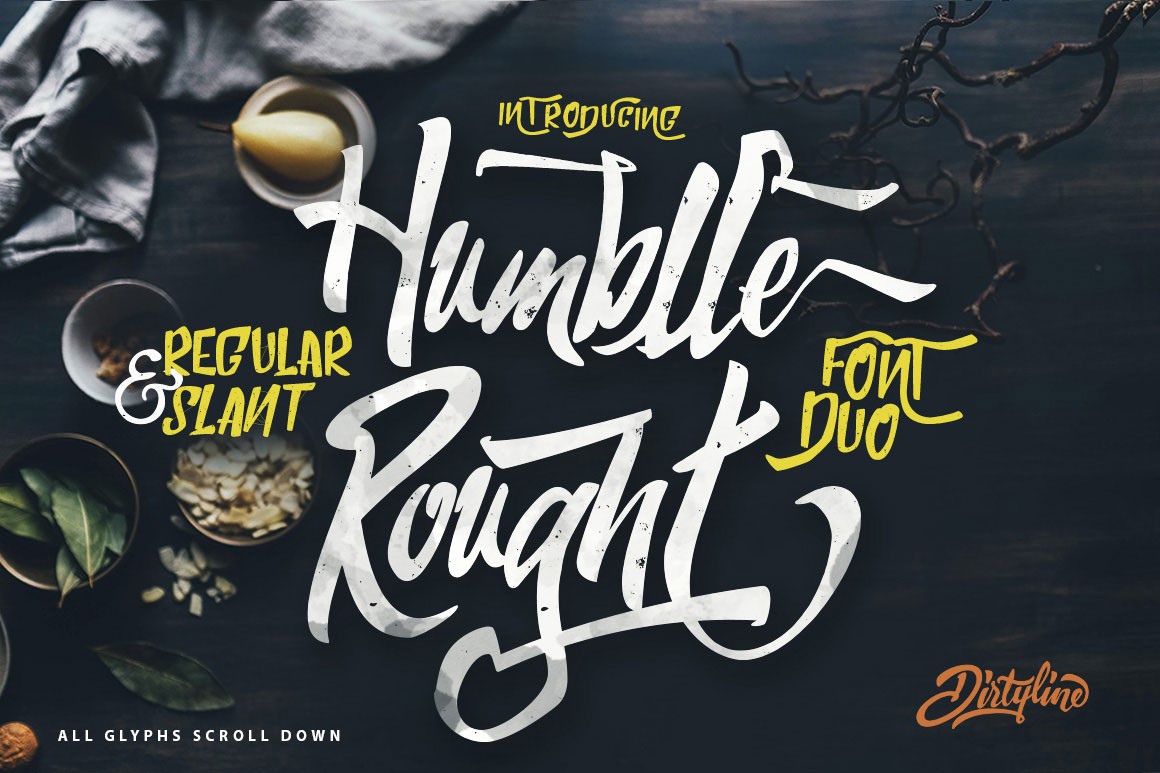
Humblle Rought Font
Humblle Rought Font is ideal for artisan craft branding, handmade product packaging, organic food labels, vintage cafe signage, rustic wedding invitations, authentic farm-to-table restaurants, independent bookstore materials, folk music album covers, weathered outdoor signage, and grassroots community projects.
What makes Humblle Rought Font so exciting is its authentic embodiment of handcrafted imperfection and honest simplicity that celebrates the beauty of human touch in an increasingly digital world. This genuinely crafted typeface features deliberately rough letterforms with organic irregularities and weathered character variations that immediately convey authenticity, humility, and artisanal quality. The font's unpretentious construction and earnest aesthetic create an instant sense of genuine craftsmanship and down-to-earth values, making it perfect for projects that need to communicate sincerity, traditional skills, and the irreplaceable value of human creativity to audiences seeking authentic alternatives to mass-produced perfection.
The Humblle Rought Font family typically includes multiple weathered weights and handcrafted styles, often featuring light, regular, and bold variations along with naturally distressed versions. Artisanal font collections frequently offer additional hand-drawn elements such as rustic ornaments, organic borders, and craft-inspired symbols that enhance the authentic handmade aesthetic and provide designers with comprehensive tools for creating genuinely artisanal communications.
The artisanal quality of Humblle Rought Font makes it particularly effective for small businesses and local organizations where establishing personal connection and community trust are essential for sustainable success. Local marketers and craft entrepreneurs will find this font especially valuable for materials that must communicate authentic values and handmade quality to discerning customers.
What sets Humblle Rought Font apart is its ability to project genuine humility while maintaining the confidence necessary for effective brand communication. This rare characteristic makes it suitable for businesses that honor traditional methods while adapting to contemporary market demands.
Professional designers recognize that Humblle Rought Font brings invaluable authenticity to projects across industries including artisanal food, handmade crafts, sustainable agriculture, and community development. Its humble character and organic appeal make it essential for organizations whose values center on tradition, sustainability, and human-scale production.
The intentional imperfection of Humblle Rought Font ensures consistent authenticity across all handcrafted communication applications while celebrating the irreplaceable value of human touch.